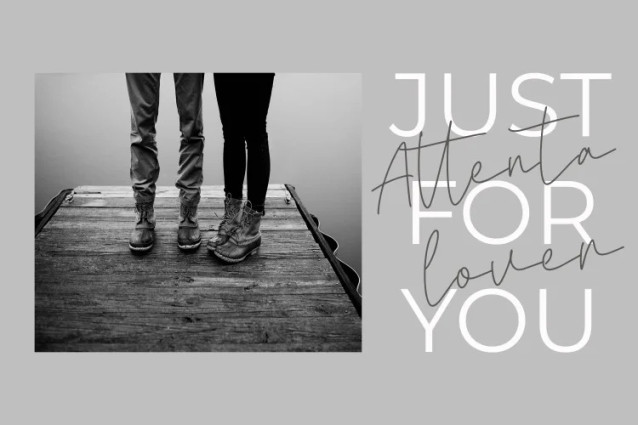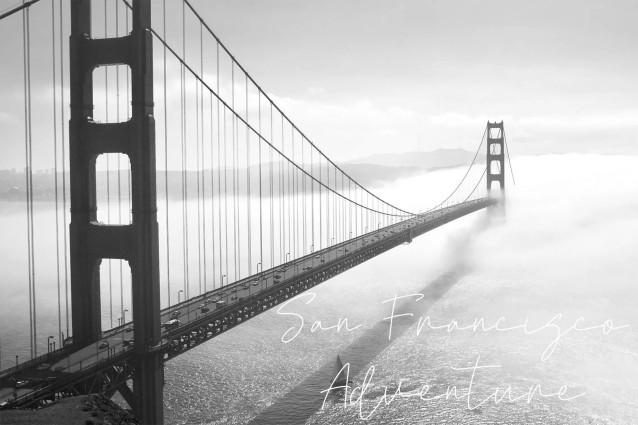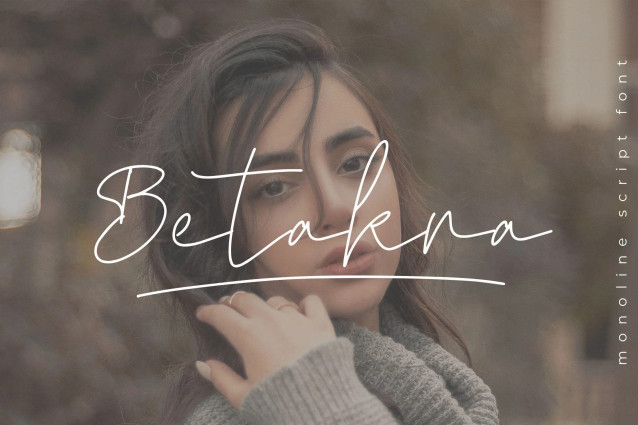
Betakra Monoline Font
Betakra Monoline Font, an elegant script font with a sleek monoline design. Featuring beautifully crafted characters with unique shapes, Betakra adds sophistication and charm to any project. Ideal for enhancing product visuals and creative designs, this font will bring a polished and attractive look to your work.